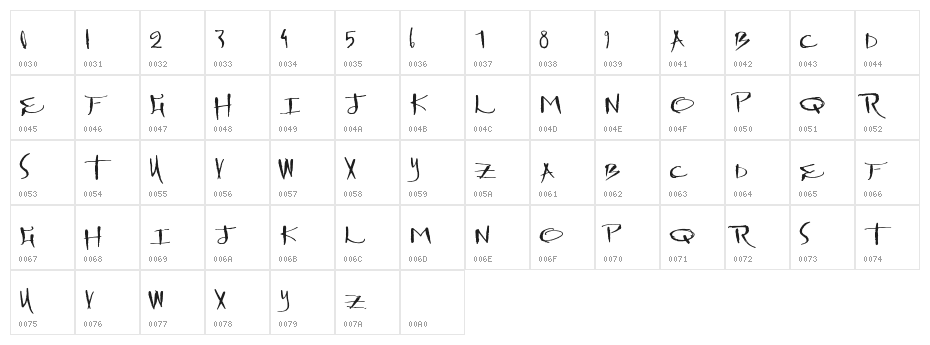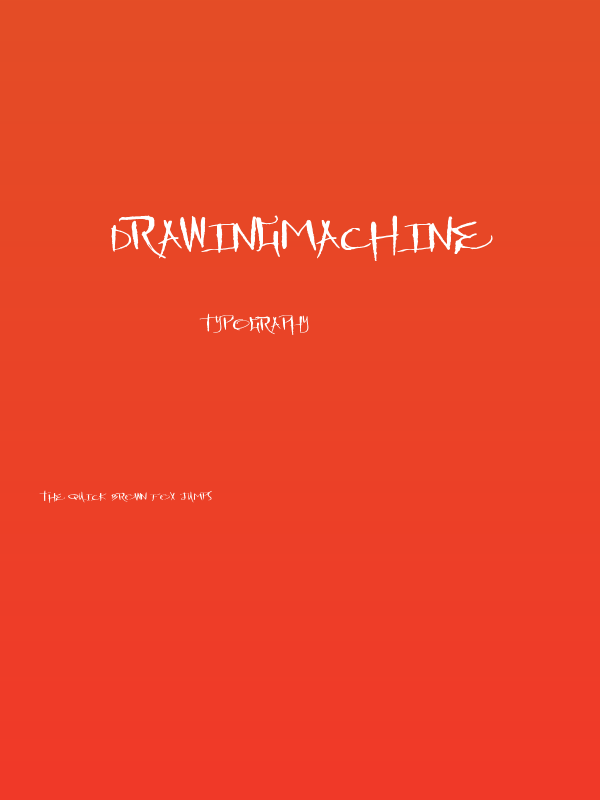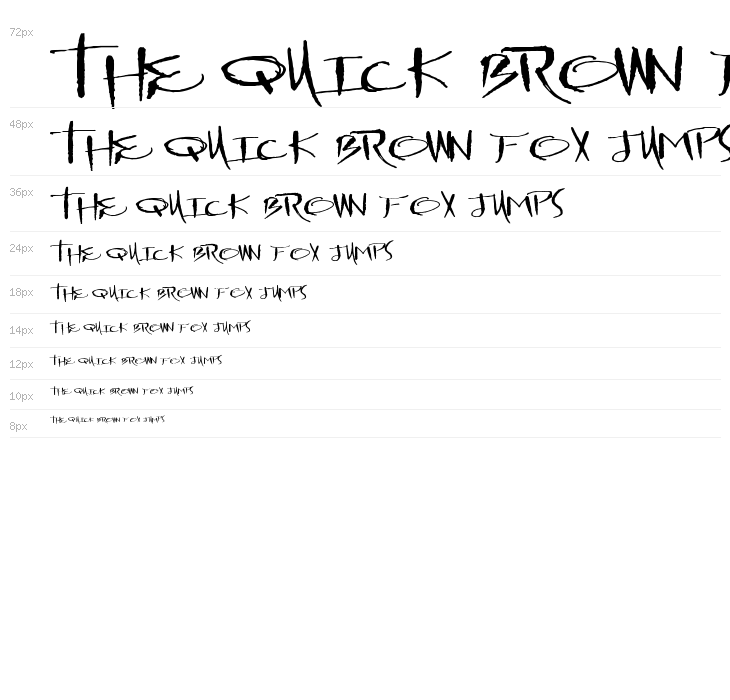
DrawingMachine Font
DrawingMachine Description
This font exudes a dynamic and artistic flair, characterized by its bold, brush-like strokes that convey a sense of movement and energy. The letters are irregular and slightly chaotic, giving it a hand-drawn appearance that is both expressive and unique. The uppercase and lowercase letters maintain a consistent style, with exaggerated curves and sharp angles that add to its dramatic effect. The numbers follow the same aesthetic, ensuring uniformity across all characters. This font is perfect for projects that require a bold statement or an artistic touch, such as posters, album covers, or creative branding materials.
| Overall Style | Artistic, Expressive |
| Use Case | Headlines, Logos, Artistic projects |
| Proposed Projects | Ideal for posters, album covers, creative branding, and artistic projects. |